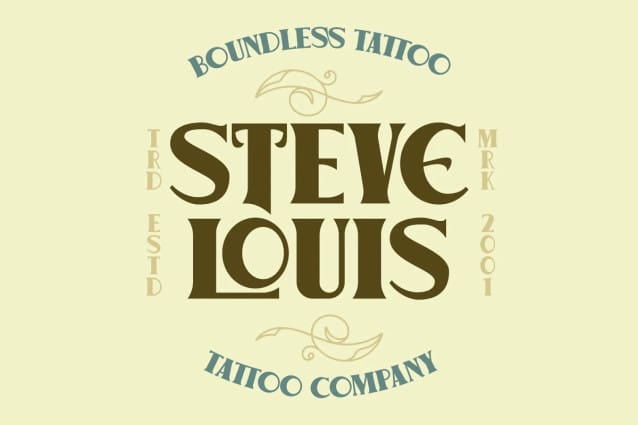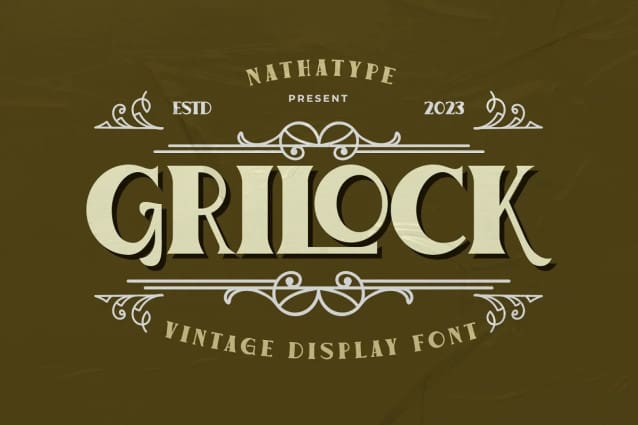
Grilock Font
Grilock Font, an uppercase display font that seamlessly merges vintage aesthetics with a unique sense of irregularity. But what truly sets Grilock apart is its deliberate embrace of irregularity. This irregularity imbues Grilock Font with character and individuality, reminiscent of vintage handcrafted signage.
The relatively sharp corners of Grilock add a touch of edginess to the font, creating a sense of boldness and impact. These sharp angles provide visual contrast against the uneven thickness, resulting in a font that is both striking and memorable. In addition, Grilock gives ornaments as a special bonus.